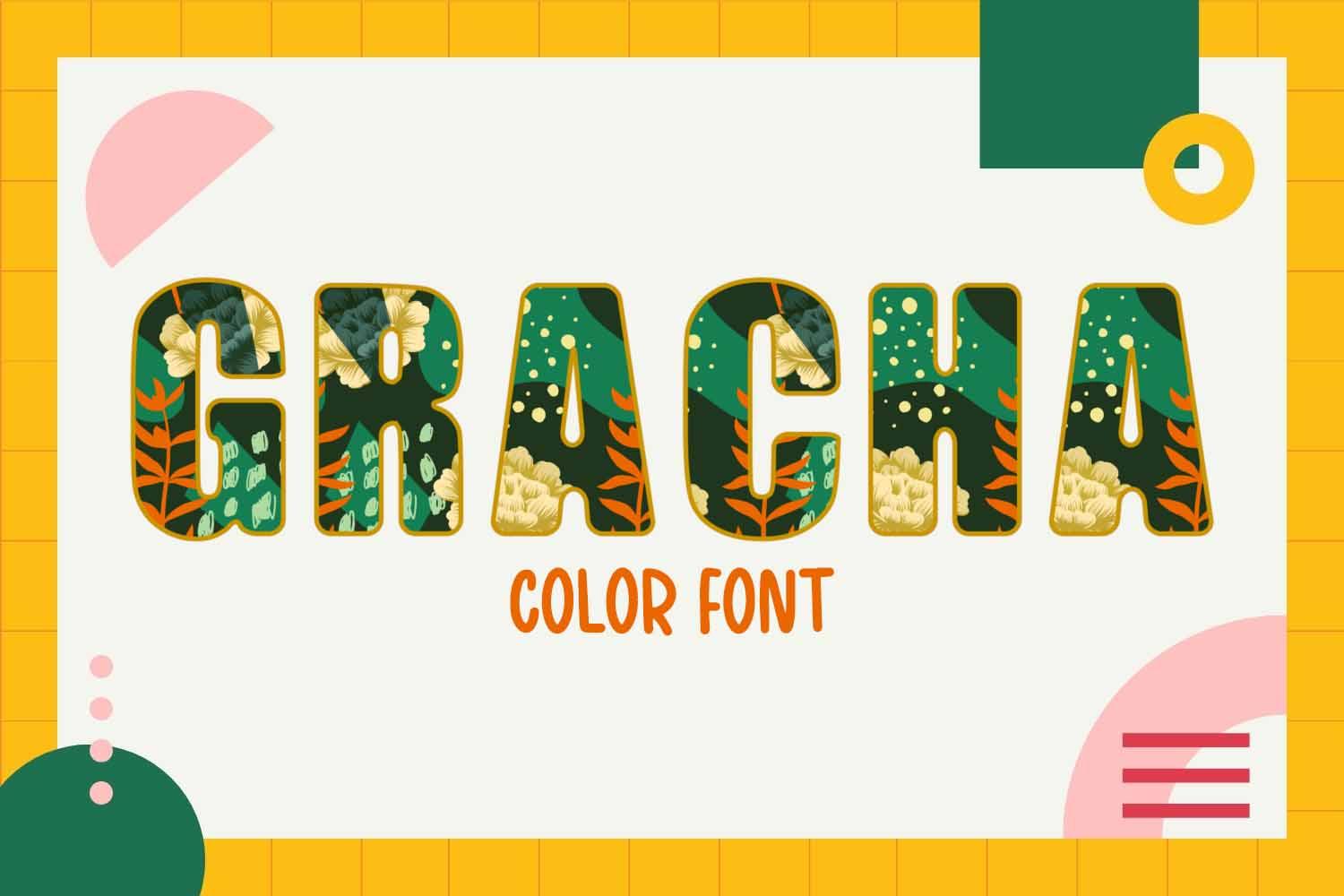
Gracha Font Description
Gracha is a color font that is both trendy and gorgeous! Decorated with flowers, and leafy elements to compliment your stunning design and projects. ‘ Bitmap glyphs are currently visible only in a few apps like Photoshop CC 2017 & over Illustrator CC 2018+, In Design CC 2019+ and MacOS native apps (Procreate, FontBook, Pages, Keynote) but not in Photoshop CC 2015 or older.